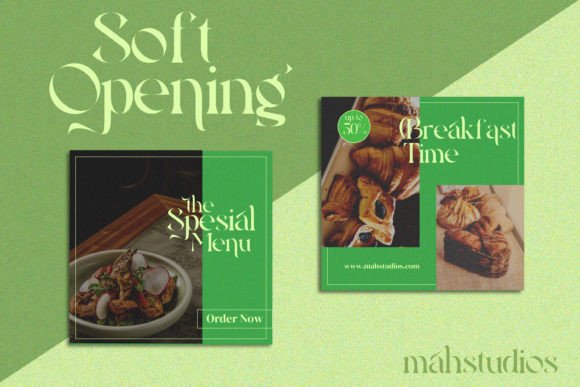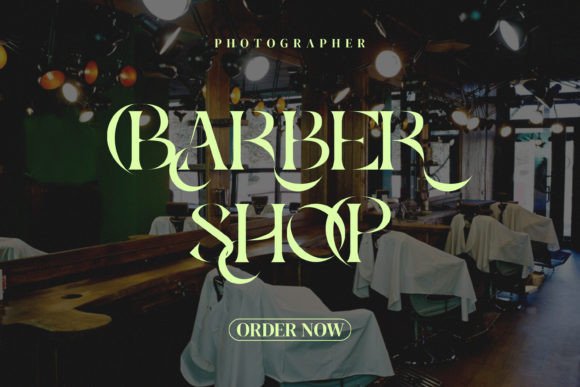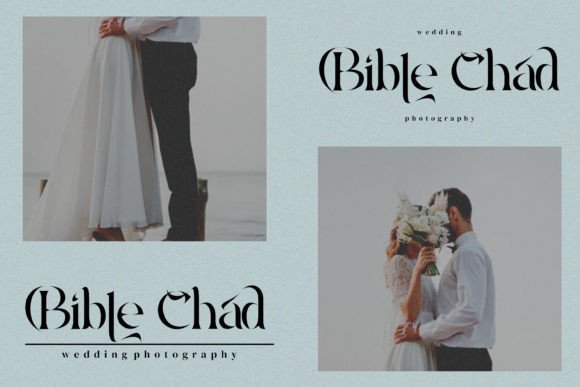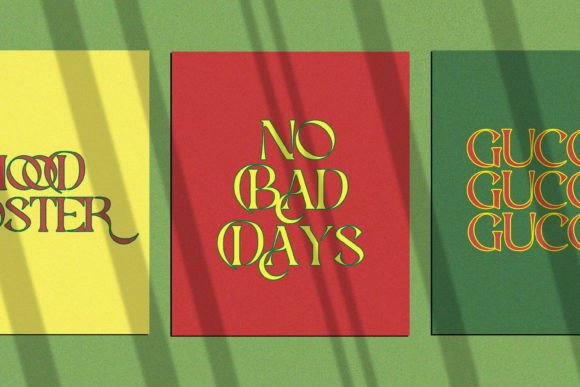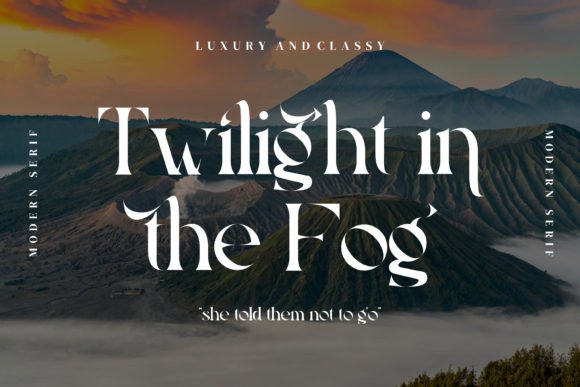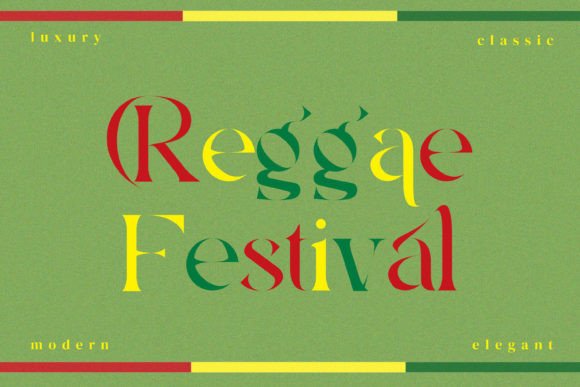
Introduction to Hariken Font
Hariken is a stylish and elegant serif font.
No matter the topic, this font will be an incredible asset to your fontsโ library, as it has the potential to elevate any creation Hariken is PUA encoded which means you can access all the glyphs and alternates with ease.
Key Features of Hariken Font
Hariken Font offers exceptional quality and versatility, making it a valuable addition to your design toolkit. Whether you’re creating for personal projects or commercial use, Hariken Font delivers professional results.